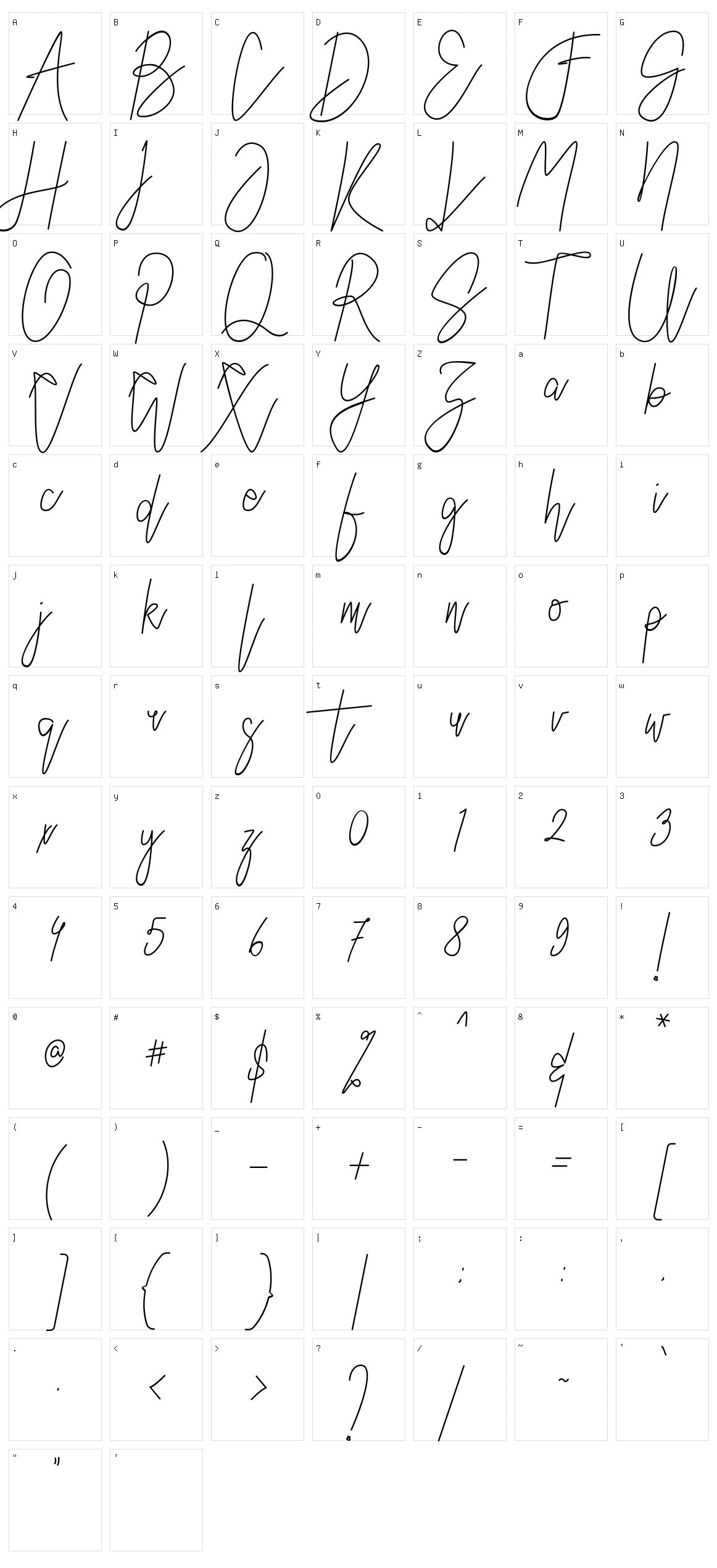
The free font Austin Worth is carefully designed by Nartz type, showcasing a thoughtful balance of creativity and usability and falls under the Script font style. When you download the ZIP file, it contains only 29.4 KB of font files, making it lightweight and quick to download. Please review the license details below to understand permitted usage and distribution rights. If license information is not available, we recommend using this font for personal projects only or contacting the author directly for commercial usage permissions.